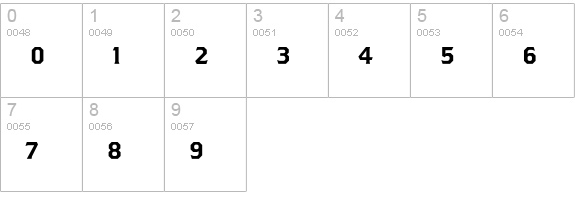
BrothersRegularAlternates Font Details
BrothersRegularAlternates font is a versatile and modern typeface that brings a touch of sophistication to any design project. With its clean lines and stylish letterforms, this font is perfect for a wide range of applications, from branding to editorial design. The alternate characters add a unique flair to your text, making it stand out from the crowd. Best of all, BrothersRegularAlternates font is completely free to download at FontsMarket.com. Whether you're a graphic designer, a blogger, or a small business owner, this font is a valuable addition to your creative toolkit. So why wait? Download BrothersRegularAlternates font today and elevate your design projects to the next level.